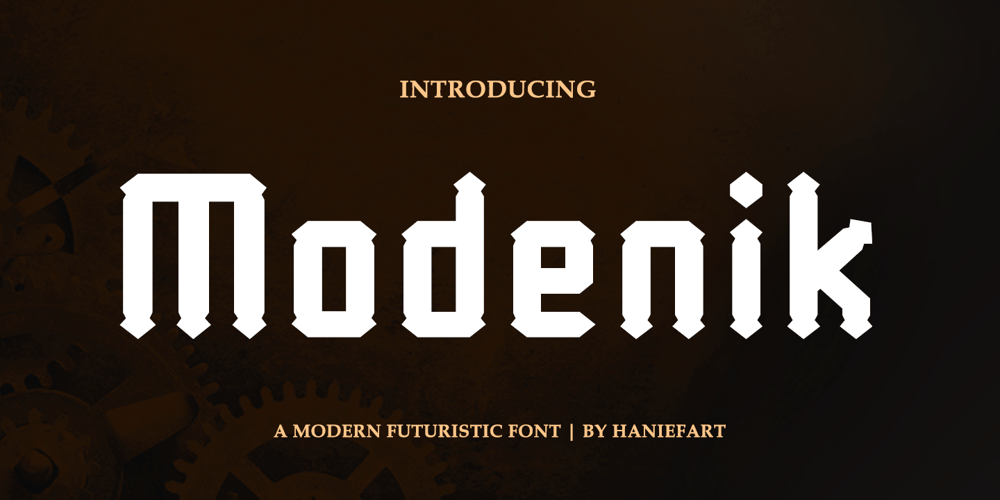
Modenik Font Family was designed by Hanif Maulazi and published by Haniefart. Modenik contains 1 styles and family package options. Modenik is a handcrafted font that is futuristic and athletic, a series of sharp looks that are unique, beautiful and modern. Modenik comes with uppercase and lowercase letters, and punctuation. Suitable for company branding, film titles, book covers, logos, and also for team sports and others.